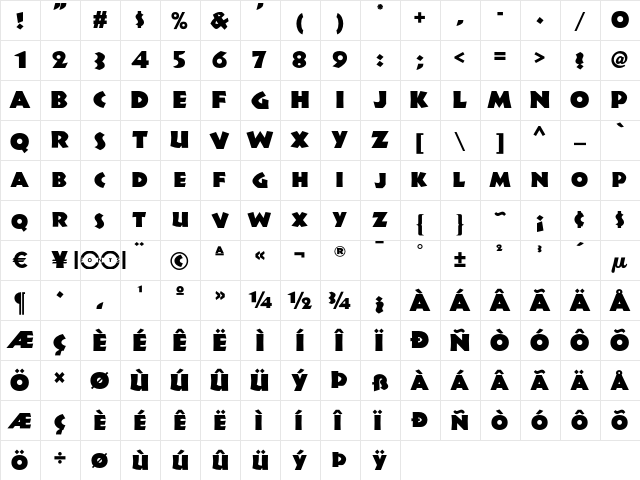
Jungle Fever NF Regular
Design Context for Jungle Fever NF Typeface
Jungle Fever NF is a composed and adaptable typeface that performs quietly and consistently across a wide range of design contexts.